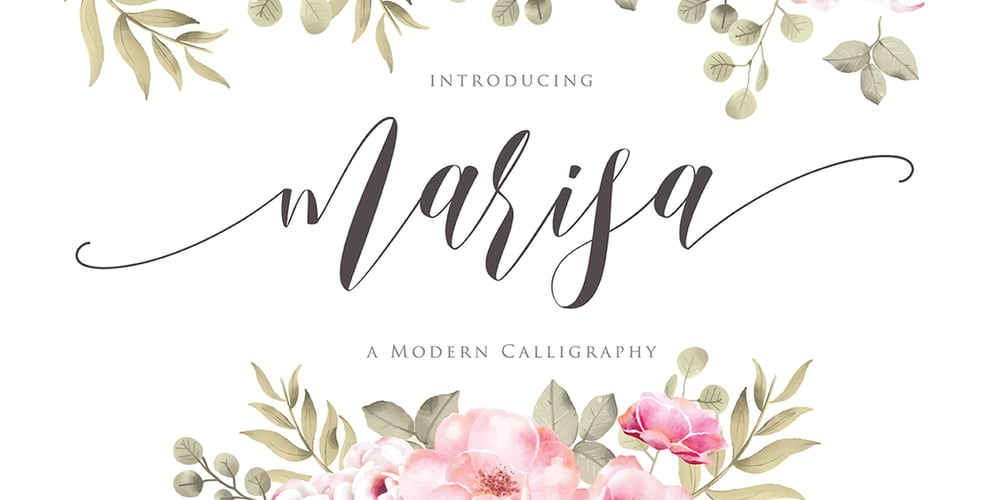
Marisa
Marisa font
Marisa Font Family was designed by Gumilar Pratama Adiatna and published by Gilar Studio. Marisa contains 1 styles and family package options. marisa is a beautiful and flowing handwritten font with beginning and ending swash.It looks beautiful on a variety of designs requiring a personalized style, such as wedding invitations, thank you cards, weddings, greeting cards, logos and so on.This font is PUA encoded which means you can access all of the glyphs and swashes with ease!marisa a new fresh & modern script with a handmade calligraphy style, decorative characters and a dancing swash ! So beautiful on invitation like greeting cards, branding materials, business cards, quotes, posters, and more!!The alternative characters were divided into several Open Type features such as Stylistic Sets. The Open Type features can be accessed by using Open Type savvy programs such as Adobe Illustrator, Adobe InDesign, Adobe Photoshop Corel Draw X version, And Microsoft Word. And this Font has given PUA unicode (specially coded fonts). so that all the alternate characters can easily be accessed in full by a craftsman or designer.You can mix and match with Opentype feature:More than 272 of glyphsStylistic sets from ss01 to ss02Multilingual LanguageThe ZIP file are include the following :marisa font filesIf you don’t have a program that supports OpenType features such as Adobe Illustrator and CorelDraw X Versions, you can access all the alternate glyphs using Font Book (Mac) or Character Map (Windows).Check my other Font here : https://gilarstudio.com/Thanks and happy designing 🙂